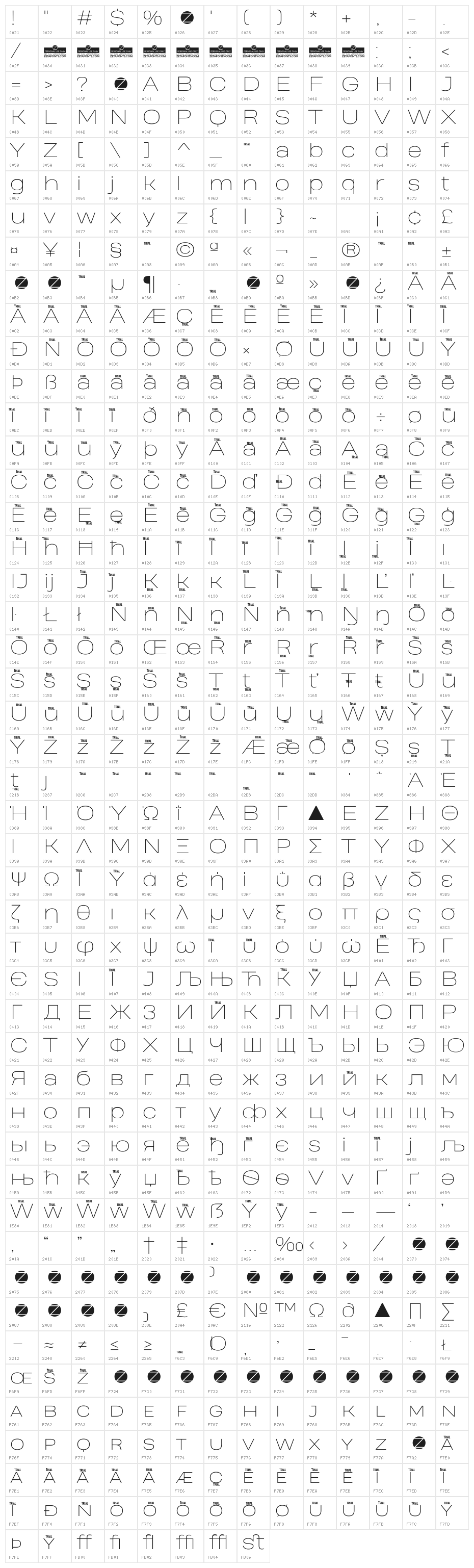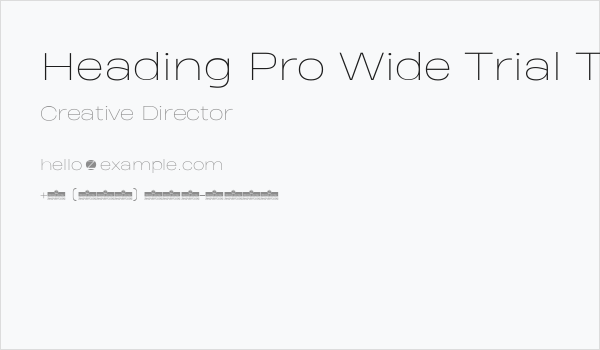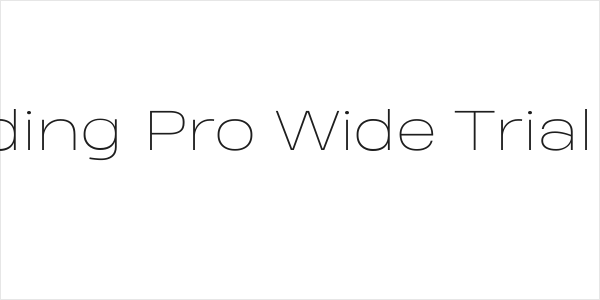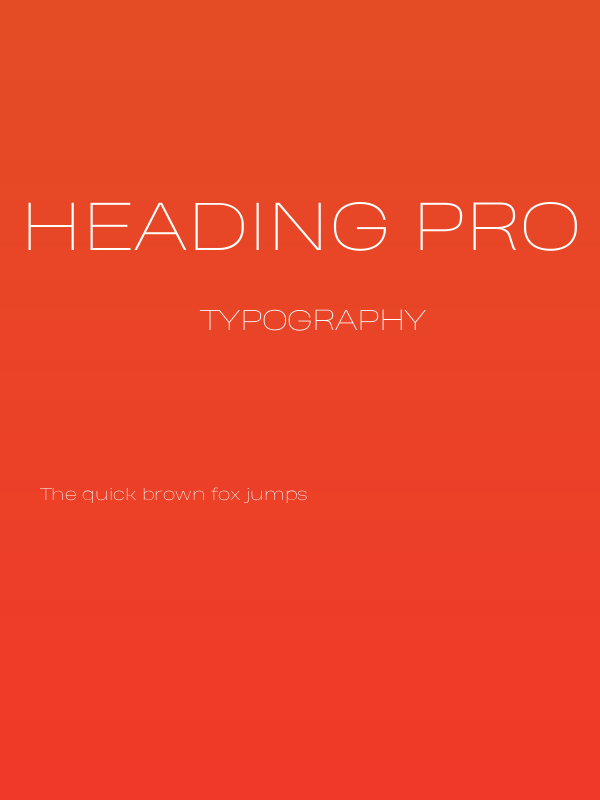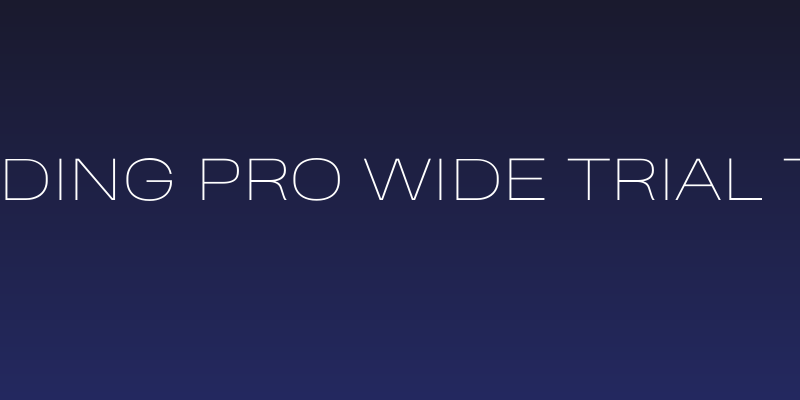
Heading Pro Wide Trial Thin Font
Heading Pro Wide Trial Thin Description
This font exhibits a modern and sleek design with a thin, elegant stroke that emphasizes simplicity and clarity. The characters are wide and spacious, contributing to a clean and airy appearance. The uppercase and lowercase letters maintain a consistent geometric structure, enhancing readability and visual appeal. The numerals and special characters are designed with the same minimalist approach, ensuring uniformity across all glyphs. This font is ideal for projects that require a contemporary and sophisticated look.
| Use Case | Headlines, Logos, Digital interfaces |
| Proposed Projects | Ideal for branding, editorial design, digital interfaces, and modern advertising campaigns. |